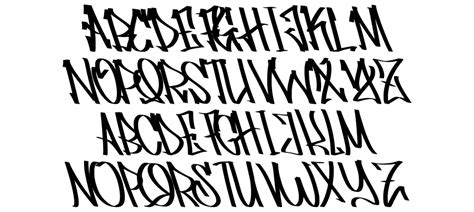
Streetlife Font: A Detailed Guide And Review
Streetlife Font: A Detailed Guide and Review
Hey guys! Ever stumbled upon a font that just screams urban vibes ? Well, meet the Streetlife Font ! It’s got that gritty, hand-drawn look that instantly transports you to a bustling city scene. In this comprehensive guide, we’re diving deep into the Streetlife Font , exploring its features, design, uses, and even how to get your hands on it. Whether you’re a designer looking for the perfect font for your next project, or just a typography enthusiast, this article is for you. We’ll cover everything from its style and inspiration to where you can download it and how to make the most of it. So, buckle up, because we’re about to explore the vibrant world of the Streetlife Font !
Unveiling the Streetlife Font: What Makes It Special?
So, what exactly makes the Streetlife Font stand out from the crowd? It’s all about that unique aesthetic! This font typically boasts a rugged, hand-drawn style with a touch of urban flair. Think of it as the visual equivalent of a cool street artist’s work or a graffiti-inspired masterpiece. Often, you’ll find it with a slightly distressed or textured appearance, adding to its raw, authentic feel. This font perfectly captures the essence of street culture and urban environments. It’s a fantastic choice if you want to give your designs a sense of edginess, personality, and genuine street style.
The inspiration behind the Streetlife Font often comes from various elements. It can be from the vibrant street art, graffiti, and signage of cities worldwide. Designers usually create this kind of font to mimic the appearance of hand-painted signs, spray-painted murals, or even the scribbled handwriting you might see on city walls. This font’s versatility is a major plus. You can use it in a wide array of projects, ranging from posters and logos to social media graphics and website headers. It adds an instant visual punch that grabs attention and gets your message across effectively. And if you’re looking to create an impactful design that speaks to the urban lifestyle, the Streetlife Font can be your secret weapon.
The unique character of this font stems from a blend of different factors. The imperfections, the slight variations in each letter, and the overall rough appearance make it distinctive. Unlike clean, modern fonts, this font has a natural, human touch. This makes it feel more relatable and authentic, especially when you want to connect with your audience on a personal level. Additionally, many Streetlife Font variations come with multiple styles, such as regular, bold, or italic, offering you the flexibility to adapt to your design needs. The inclusion of special characters, ligatures, or alternative glyphs can also enhance the font’s aesthetic, allowing for even more creative control. In the end, it’s this combination of raw style, flexibility, and urban inspiration that makes the Streetlife Font such a valuable asset for designers. So, if you’re ready to embrace the edgy, expressive nature of this font, you’re in the right place.
Design and Style: Exploring the Aesthetics of Streetlife Font
Let’s get into the nitty-gritty of the Streetlife Font’s design and style! At its core, this font is all about channeling urban aesthetics. You’ll typically find that it features a hand-drawn look, often with a slightly distressed or textured appearance. This imperfections are what really makes it shine. These imperfections mimic the look of hand-painted signs or spray-painted graffiti. This instantly adds a sense of authenticity and urban grit to your designs.
Many Streetlife Font variations also embrace the use of bold lines, sharp angles, and dynamic shapes. The intention is to create a sense of movement and energy that reflects the vibrant nature of street life. In terms of legibility, while this font is primarily focused on style, it usually maintains a good degree of readability. Designers often craft the letters carefully so that they are recognizable at various sizes. Nevertheless, this font is best suited for headlines, titles, or short bursts of text rather than long paragraphs. The stylistic choices within the Streetlife Font can vary widely. Some styles may lean toward the bold, graffiti-inspired looks. Others might embrace a more subtle, hand-lettered feel. This diversity is what makes the Streetlife Font so adaptable. It enables designers to find the perfect match for their project’s tone and message.
Considering the Streetlife Font’s aesthetic, the font excels when combined with the right visuals. Think of high-contrast color palettes, bold imagery, and urban photography. These elements can enhance its impact and create a cohesive design. For instance, pairing the font with a gritty texture background or street-style illustrations can amplify its overall effect. The use of this font can significantly elevate your designs, making them visually appealing and reflective of street culture. Understanding the design and style of the Streetlife Font is the first step towards using it effectively. Whether you want to convey a sense of edginess, creativity, or authenticity, this font can be a powerful tool in your design arsenal. So go ahead and embrace the raw, unfiltered essence of the urban world!
Where to Use the Streetlife Font: Applications and Examples
Okay, so you’re probably wondering where you can actually use the Streetlife Font , right? Well, this font is incredibly versatile, making it perfect for a whole range of creative projects! You’ll often see it used in various applications because of its unique aesthetic. Think about movie posters, album covers, and event flyers, where its bold and edgy appearance can immediately grab attention. In the realm of branding, the Streetlife Font is a favorite among businesses wanting to project a modern or urban feel. It’s great for logos, packaging, and advertising materials. If you’re designing for apparel, this font can also be a perfect option! It’s widely used in t-shirt designs, streetwear brands, and other clothing items where a touch of urban style is desired. Moreover, the Streetlife Font works wonderfully in digital media. It can be incorporated into social media graphics, website headers, and even animated videos. It has the power to convey a sense of personality, creativity, and authenticity in any setting.
Let’s go into some specific examples to help you visualize it. Imagine you are working on a promotional poster for a hip-hop concert. The Streetlife Font would be the perfect choice to convey the energy and dynamism of the event. Or, if you’re designing a logo for a skateboarding brand, this font can instantly capture the brand’s rebellious spirit. Also, consider the use of the Streetlife Font for creating eye-catching website headers for a street-style fashion blog. The font will bring your brand to life. In addition to these examples, it’s important to remember that the applications of the Streetlife Font extend beyond this. It’s a great choice for any project that wants to connect with an urban audience. If you want your designs to appear daring, creative, or authentic, the Streetlife Font is the tool you need. So, go out there and experiment. Let your creativity flow and see how this font can transform your projects.
Conclusion: Embrace the Urban Vibe with Streetlife Font
Alright, guys! We’ve covered a lot in this comprehensive guide to the Streetlife Font . We’ve explored its unique style, discussed its applications, shown you how to download and install it, and even given you some handy tips and tricks. We also went through some cool alternatives. Hopefully, you now have a solid understanding of this amazing font and how you can incorporate it into your design projects. The Streetlife Font is more than just a font; it’s a statement. It’s a way to capture the raw energy, creativity, and authenticity of the urban world. So, whether you’re a seasoned designer or a beginner, don’t be afraid to experiment with the Streetlife Font . Unleash your creativity and embrace the urban vibe! You can create stunning designs that really stand out. Happy designing!